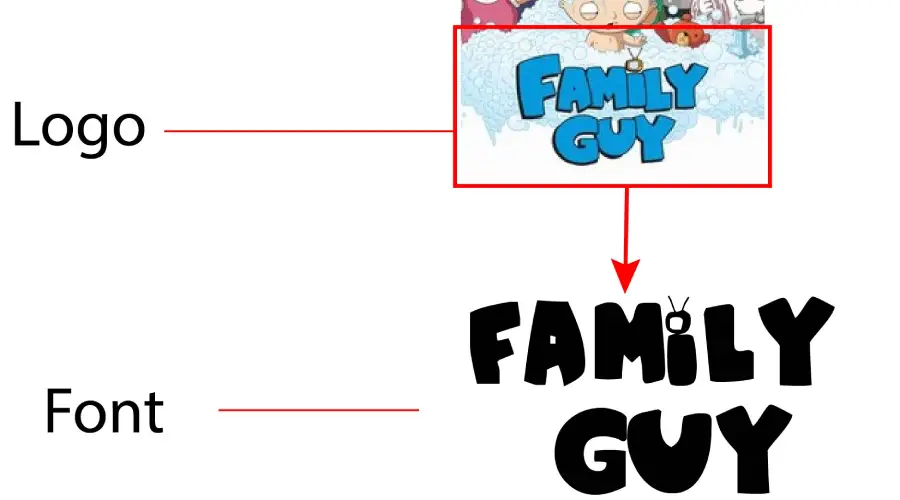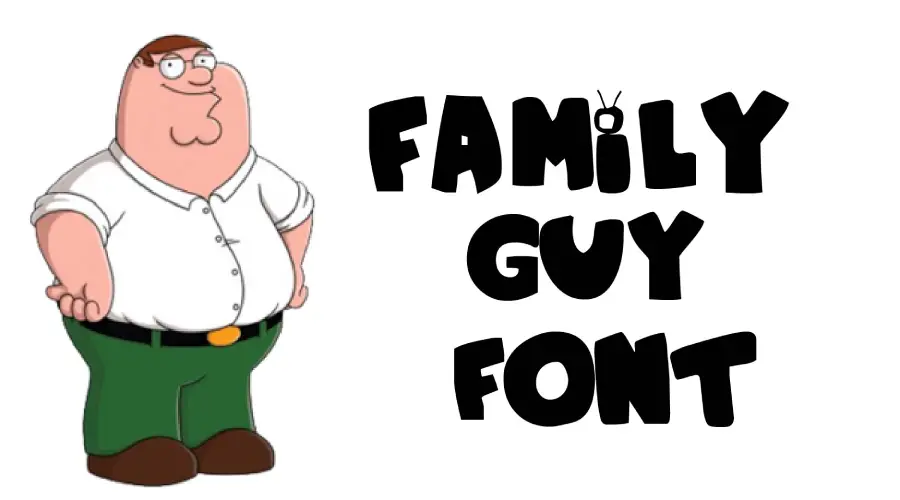
Welcome! Today, we will talk about the Family Guy font. Family Guy is a popular animated sitcom created by Seth MacFarlane that follows the adventures of the Griffin family and their talking dog, Brian. The show is known for its irreverent humor, pop culture references, and cutaway gags.
The logo of Family Guy features the show’s title in a custom-made font. But it has been recreated and also named the Family Guy font. It first appeared on Famous Fonts as shareware.
It is an excellent choice for creating fun and quirky designs that capture the spirit of the show. Whether you want to make a parody, a tribute, or fan art, this font can help you achieve the desired effect.